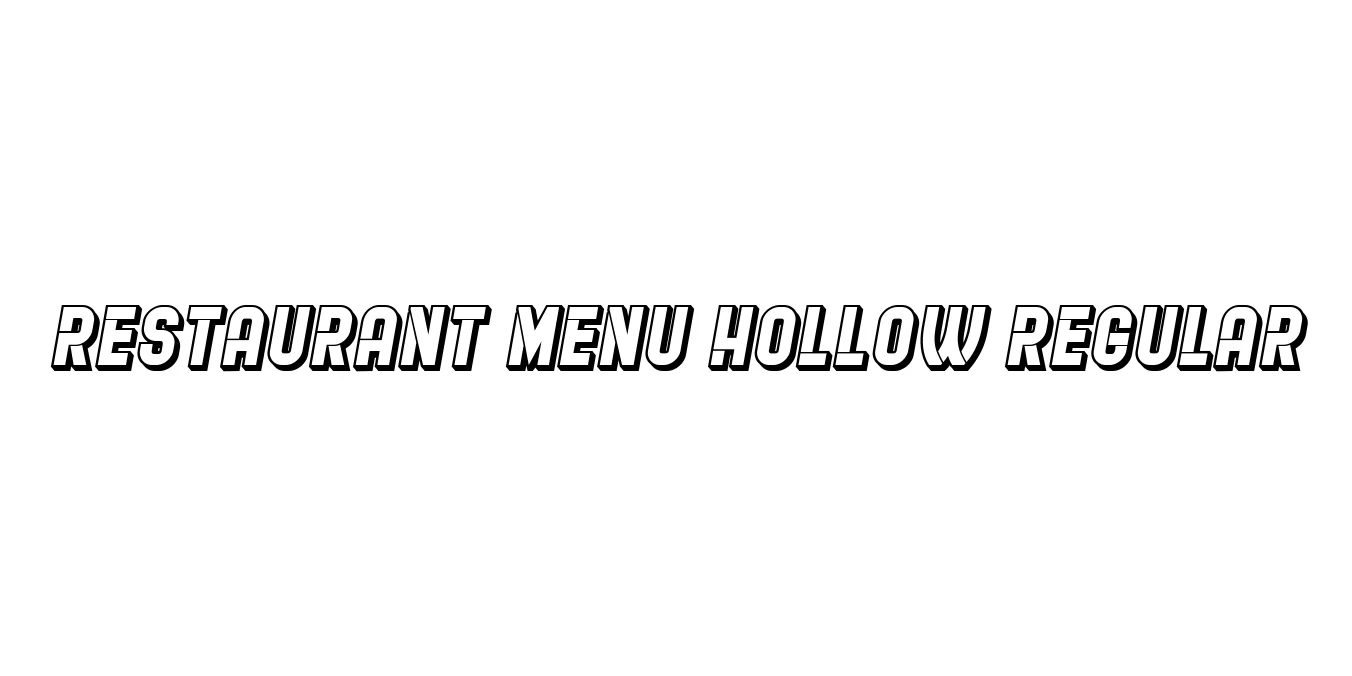
Restaurant Menu Hollow Regular
Designed by Darrell Flood
| Font Name | Restaurant Menu Hollow |
| Category | Display / Decorative |
| Designer | Darrell Flood |
Restaurant Menu Hollow Regular is a specialized display font designed to capture the quintessential aesthetic of classic dining and hospitality signage. Its distinctive outline structure provides a lightweight yet bold presence, making it an ideal choice for minimalist branding and high-impact headlines. The font is characterized by its clean geometric lines and balanced proportions, which allow it to remain legible while adding a sophisticated decorative touch to any design layout.
Historically, this typeface has been utilized by graphic designers to evoke a sense of nostalgia and modern professionalism within the food and beverage industry. Because the glyphs are hollowed out, the font excels in layered design environments where background textures or colors need to peek through the typography. It is frequently employed in menus, interior restaurant decor, and digital assets that require a thematic, inviting atmosphere without the visual weight of solid fonts.
Restaurant Menu Hollow Regular Best Uses
Ideal for section headers and titles in food and drink menus.
Perfect for storefront window graphics and interior wall art.
Great for creating clean, modern logos for cafes and bistros.
Excellent for eye-catching promotional graphics and food blog overlays.